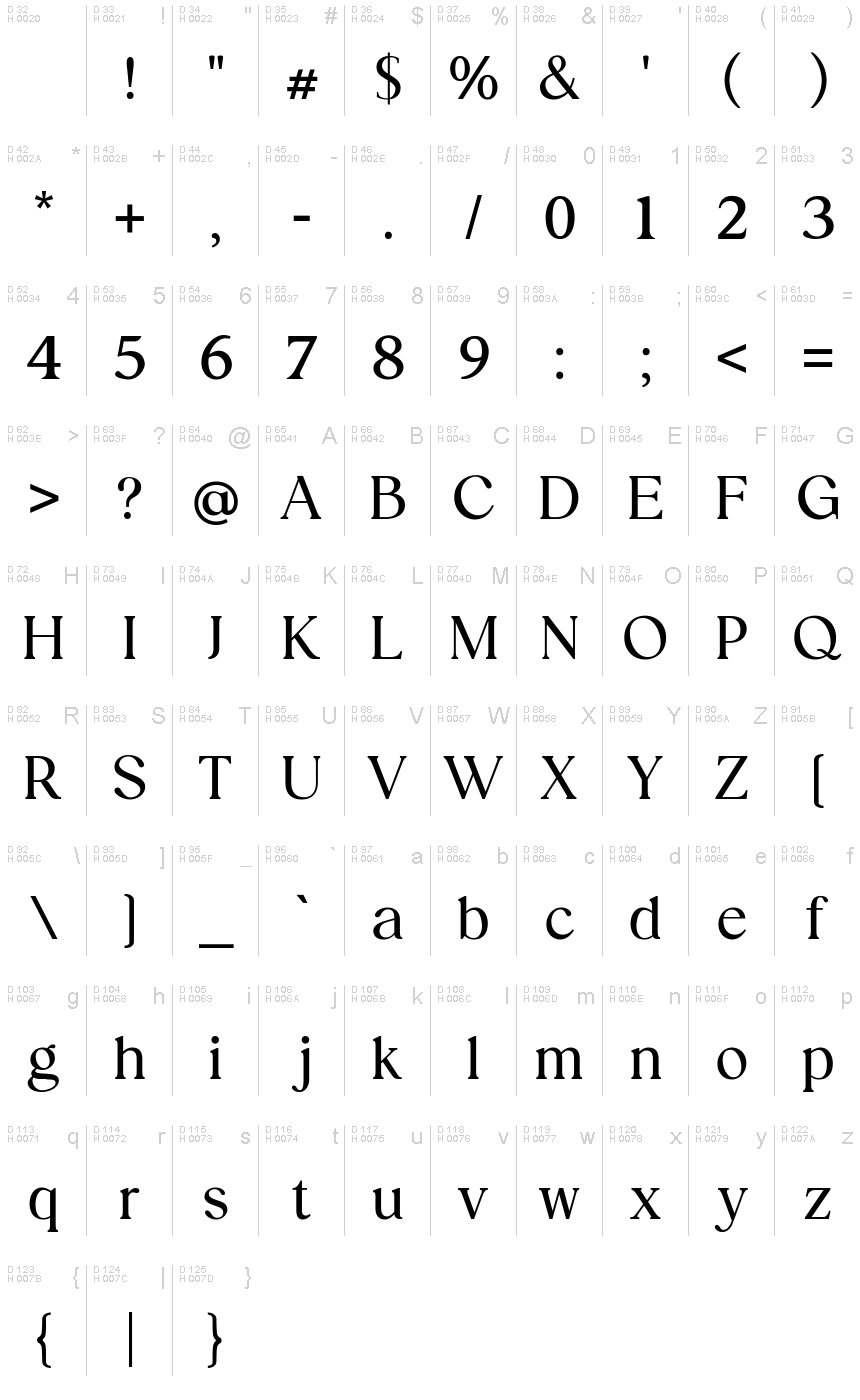
Editorial Today Regular
Exuding timeless elegance, "Editorial Today" by UI Creative is a captivating serif font that commands attention. Its refined, well-balanced strokes and distinctive serifs create a sophisticated aesthetic, evoking a sense of tradition and professionalism. The font's carefully crafted character forms and harmonious proportions lend a graceful, yet authoritative tone to any text. Whether used for editorial content, corporate branding, or high-end publication design, "Editorial Today" seamlessly blends classic sensibilities with modern appeal.
Versatile and adaptable, "Editorial Today" by UI Creative is an exceptional choice for a wide range of design applications. Its strong presence and legible letterforms make it well-suited for headline text, titling, and display purposes. Additionally, the font's refined elegance lends itself beautifully to body copy, ensuring a cohesive and visually striking typographic hierarchy. With its timeless appeal and versatile nature, "Editorial Today" is a valuable asset for designers seeking to elevate their projects with a touch of timeless sophistication.